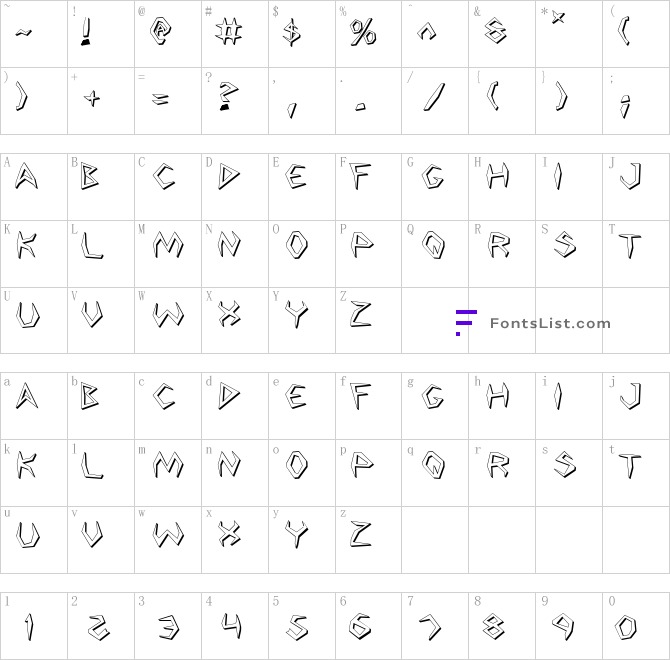
- Font Name:Argosy 3D
- Subfamily:3D
- Subfamily:Argosy 3D
- Full Name:Argosy 3D
Argosy-3D.ttf is a very beautiful artistic font, Argosy-3D.ttf is widely used in the design and printing of various books and pictures,Argosy-3D.ttf has a strong visual impact,Argosy-3D.ttf is a commonly used font in newspapers, magazines and books, and is used in posters, e-commerce Poster design, store design, logo design, font design and other fields.Argosy-3D.